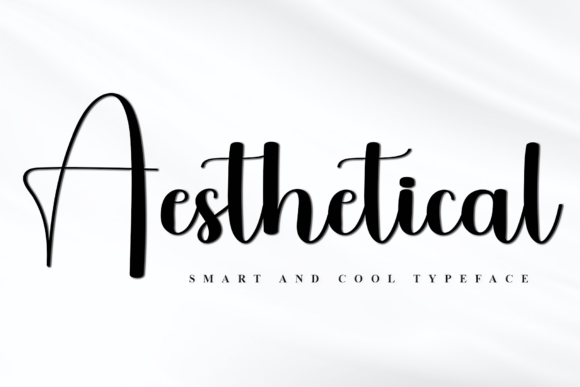
Aesthetical Font: Warmth for Editorial Design
In the world of editorial design and digital publishing, typography is never just about legibility; it is the primary vehicle for tone. As content creators, bloggers, and publishers, we understand that the typeface chosen for a headline or cover sets an immediate emotional expectation before a single word of body copy is read. This is where Aesthetical distinguishes itself within the crowded category of Script Amp fonts. It is a casual, creative typeface that exudes warmth and friendliness, utilizing round, playful strokes to create a relaxed atmosphere. For those of us designing newsletters, ebooks, lifestyle magazines, or printable guides, Aesthetical offers a specific solution to a common problem: how to maintain professional polish while fostering genuine human connection.
Defining Visual Personality in Modern Typography
Aesthetical avoids the rigid formality of traditional calligraphy and the chaotic illegibility of some distressed handwritten fonts. Instead, it occupies a sweet spot of modern typography that feels intentional yet effortless. The rounded terminals and open counters contribute to an approachable aesthetic that is particularly valuable in niche publishing. When designing for audiences seeking comfort, inspiration, or personal growth, sharp serifs or sterile sans serif fonts can sometimes feel too clinical. Aesthetical acts as a visual softener, signaling to the reader that the content within is safe, welcoming, and curated with care.
This font functions best as a display font rather than a workhorse for long-form reading. Its personality shines in high-impact areas where you need to arrest attention without demanding cognitive load. In editorial layouts, this means utilizing Aesthetical for article titles, pull quotes, chapter openers, and sidebar accents. The letterforms possess enough weight to hold their own against negative space, making them ideal for minimalist blog headers or Instagram carousel covers where clarity on mobile screens is paramount.
Strategic Applications Across Publishing Formats
The versatility of Aesthetical becomes apparent when applied across different content verticals. Because it balances creativity with structure, it adapts well to various editorial needs:
- Lifestyle and Wellness Blogs: Use Aesthetical for category tags or featured post titles to reinforce a brand identity centered on mindfulness and ease.
- Recipe Ebooks and Food Magazines: The playful strokes complement food photography beautifully, evoking the feeling of home cooking rather than industrial catering.
- Coaching Workbooks and Journals: For interactive PDFs and printables, this font makes prompts and section headers feel like a conversation with a mentor rather than a textbook assignment.
- Wedding and Event Guides: It provides a romantic yet contemporary alternative to stiff formal scripts, perfect for itineraries, welcome letters, and signage.
- Creator Newsletters: Using Aesthetical in email subject lines (as images) or section dividers can increase engagement by breaking the monotony of standard system fonts.
For digital product creators selling templates or planners, Aesthetical adds perceived value. It transforms a functional document into a branded experience. When a user opens a printable planner and sees consistent, warm typography, the product feels premium and thoughtful. This attention to typographic detail is often what separates successful digital downloads from generic freebies.
Mastering Font Pairing for Readability
While Aesthetical is a stunning standalone choice for logos and short phrases, its true power in editorial design is unlocked through effective font pairing. As a script font with significant character, it requires a supportive partner for body text to ensure optimal readability. Pairing is not merely about contrast; it is about creating a cohesive visual hierarchy that guides the reader’s eye.
For body copy in articles, ebooks, or newsletters, pair Aesthetical with a clean, neutral sans serif font like Montserrat, Lato, or Open Sans. The geometric simplicity of these typefaces allows the organic curves of Aesthetical to stand out without competing. Alternatively, for a more traditional or literary feel, a readable serif font such as Merriweather or Lora creates a sophisticated juxtaposition. The key is to let Aesthetical handle the emotional heavy lifting in headings while your body font handles the information delivery.
When designing quote graphics or social media cards, consider using Aesthetical for the key phrase and a lighter weight sans serif for the attribution or supporting context. This ensures that the message remains accessible even at smaller sizes. Always test your pairings on multiple devices; what looks balanced on a 27-inch monitor may require size adjustments for mobile readers scrolling through a blog post or newsletter.
Technical Considerations for Screen and Print
Editorial designers must always balance aesthetics with technical performance. When implementing Aesthetical in web design or digital publications, file size and rendering are critical. Ensure you are loading only the necessary weights and styles to prevent slowing down page load times, which can negatively impact SEO and user retention. For web use, verify that the font renders clearly on low-resolution screens; the rounded edges should remain crisp rather than pixelated.
By integrating Aesthetical thoughtfully into your design system—respecting hierarchy, prioritizing readability, and adhering to licensing standards—you transform simple text into an immersive reader experience. It is more than just a collection of glyphs; it is a tool for building trust, conveying warmth, and ensuring that your content resonates on a deeper level with the people you aim to serve.